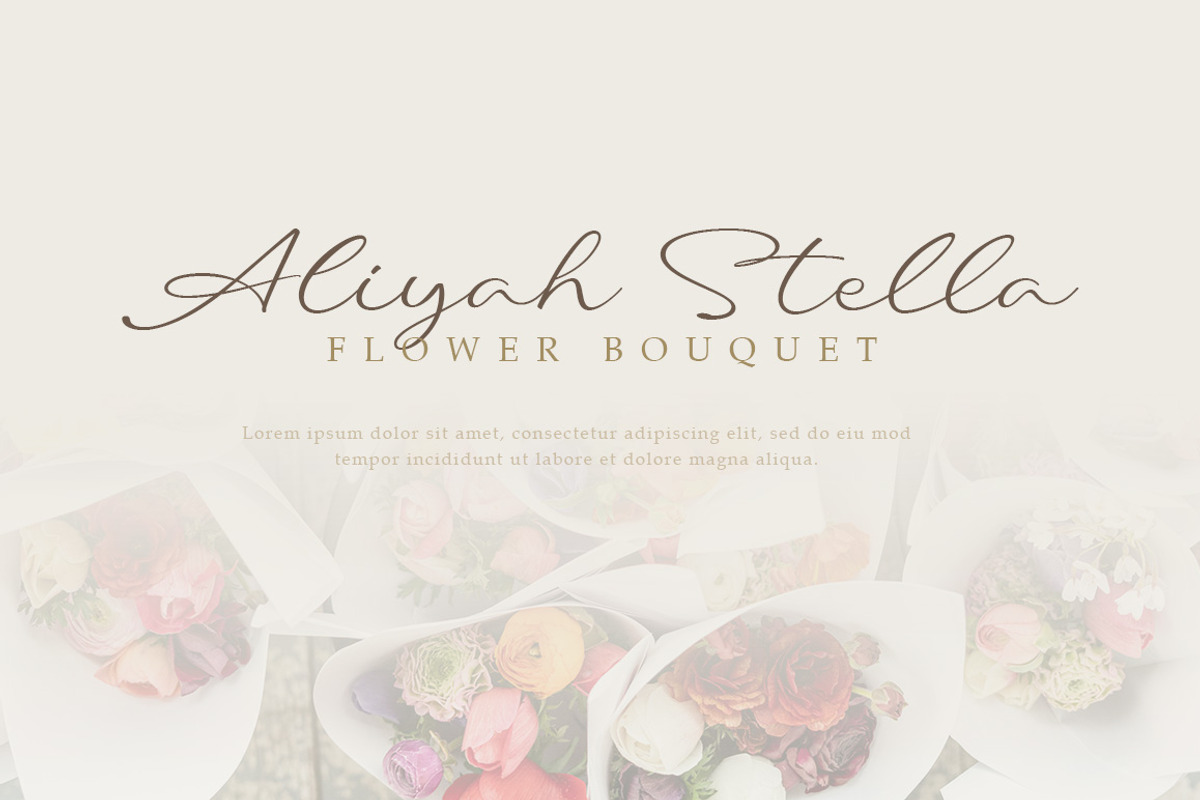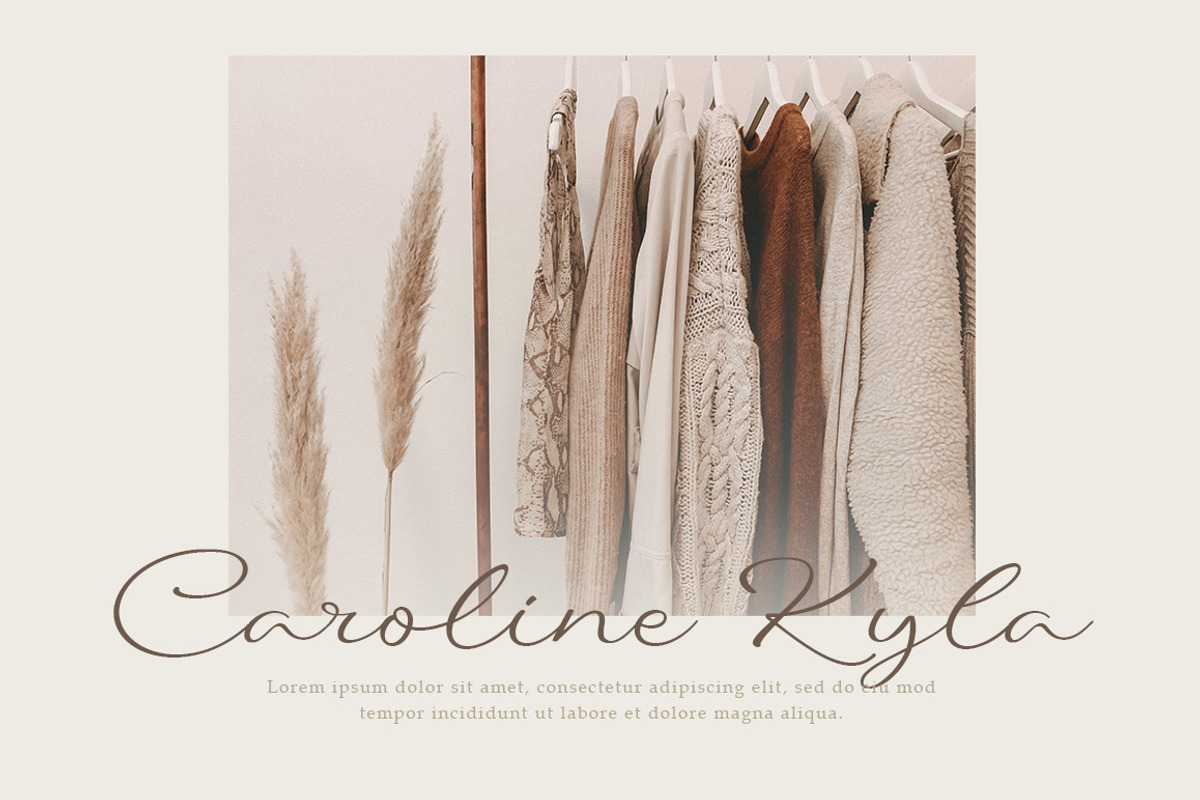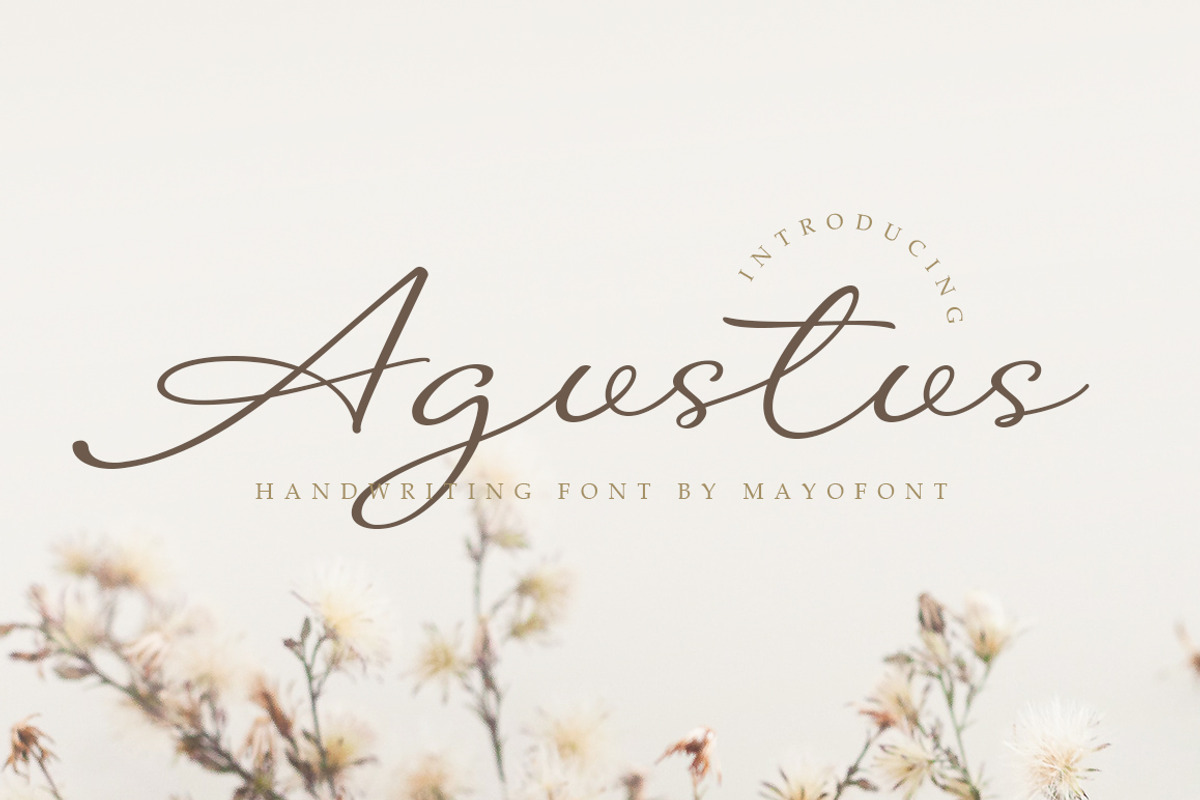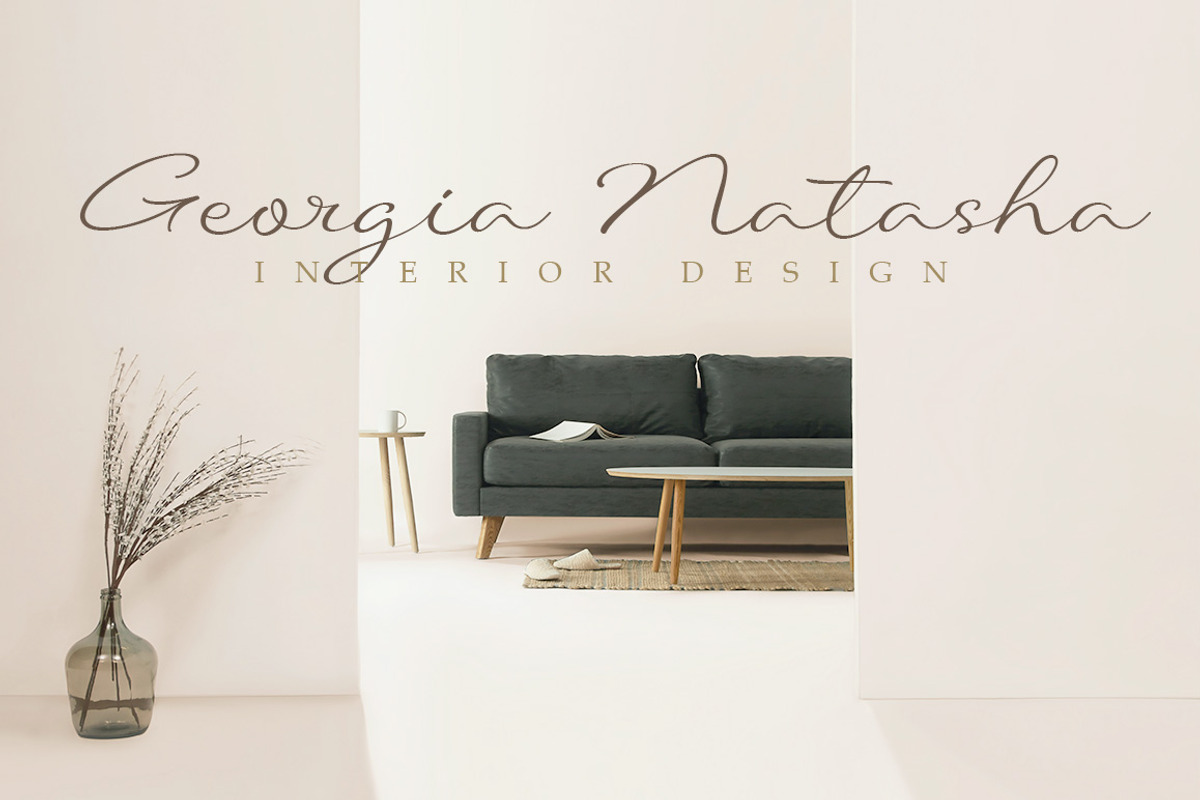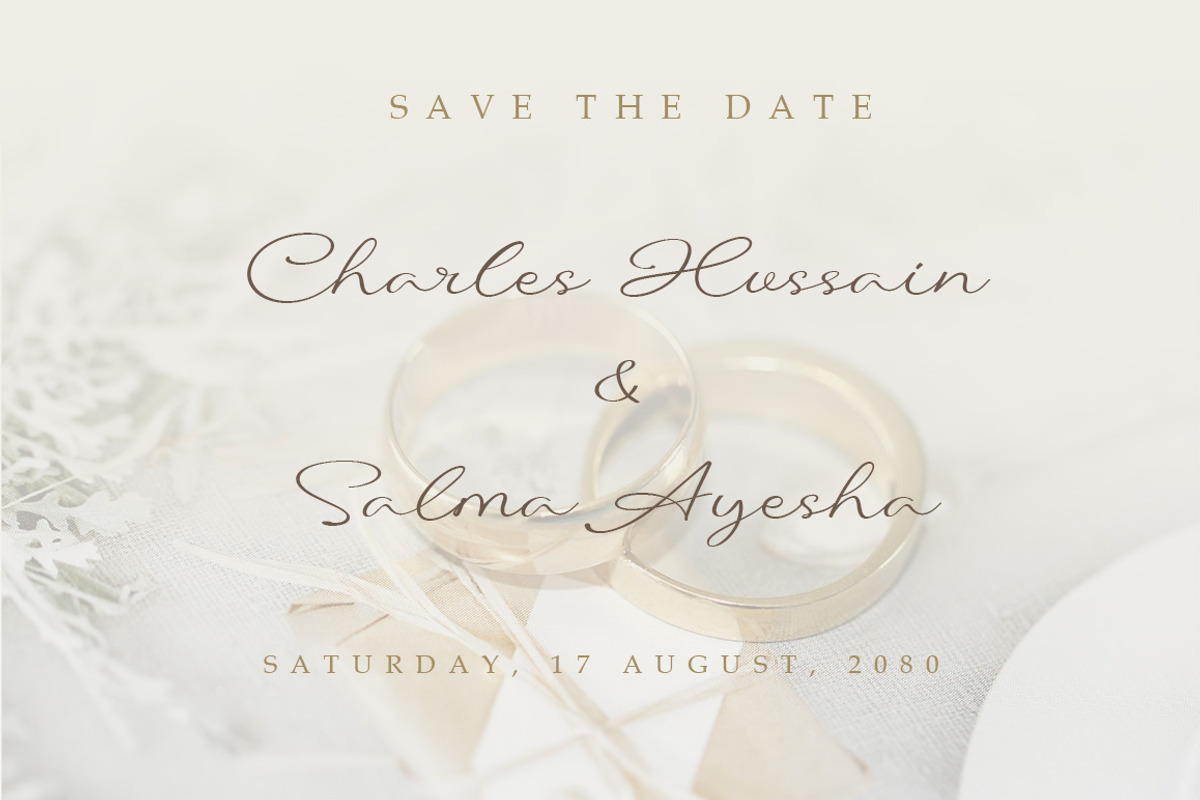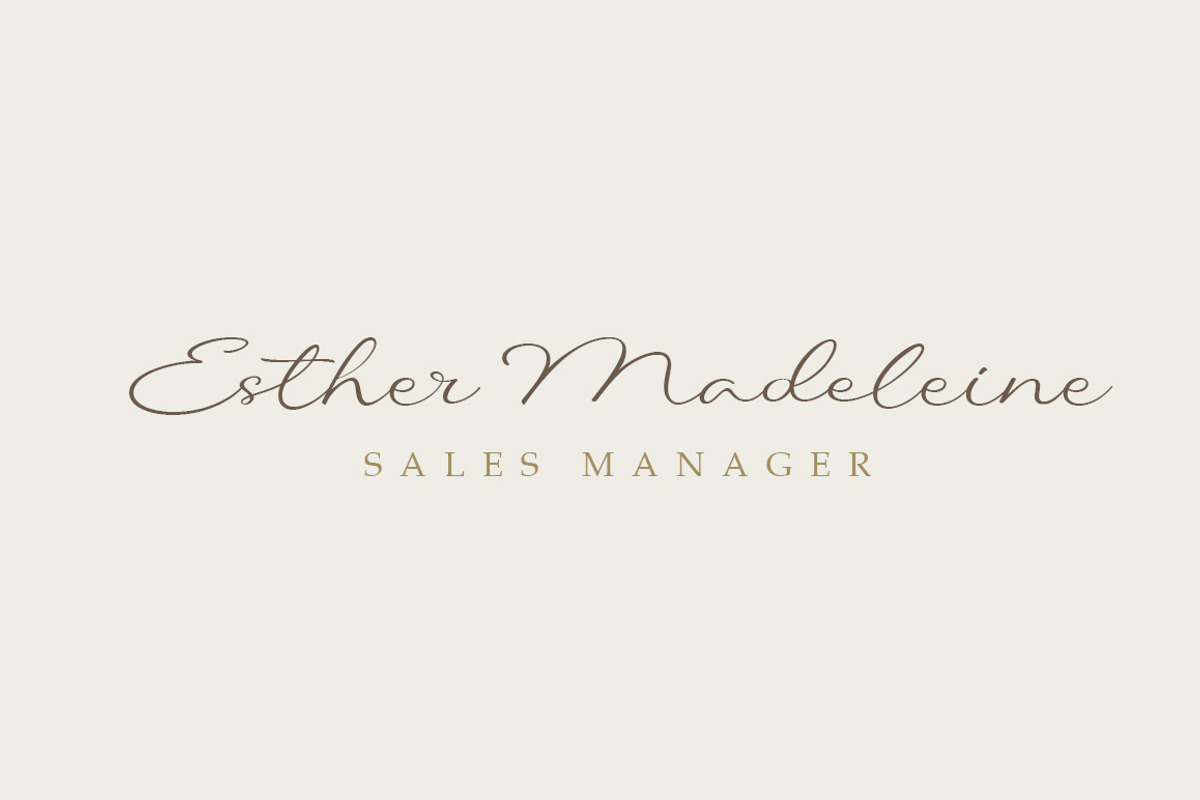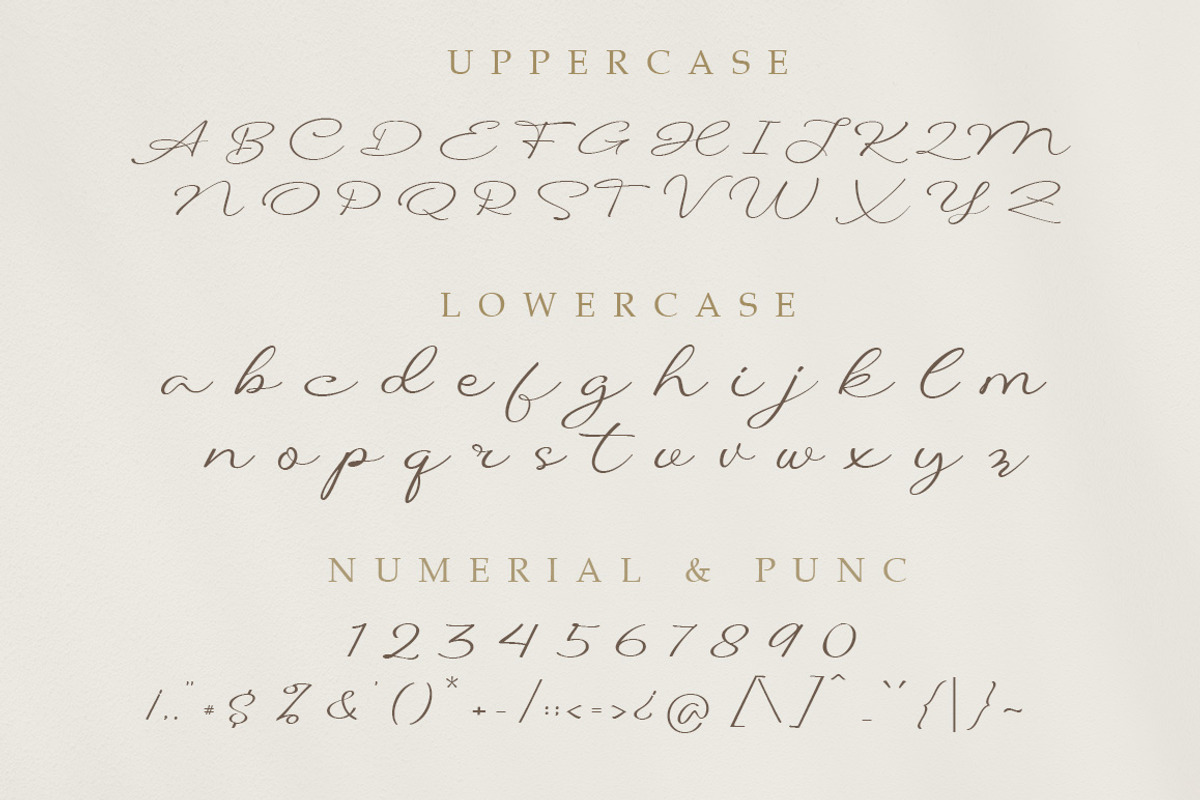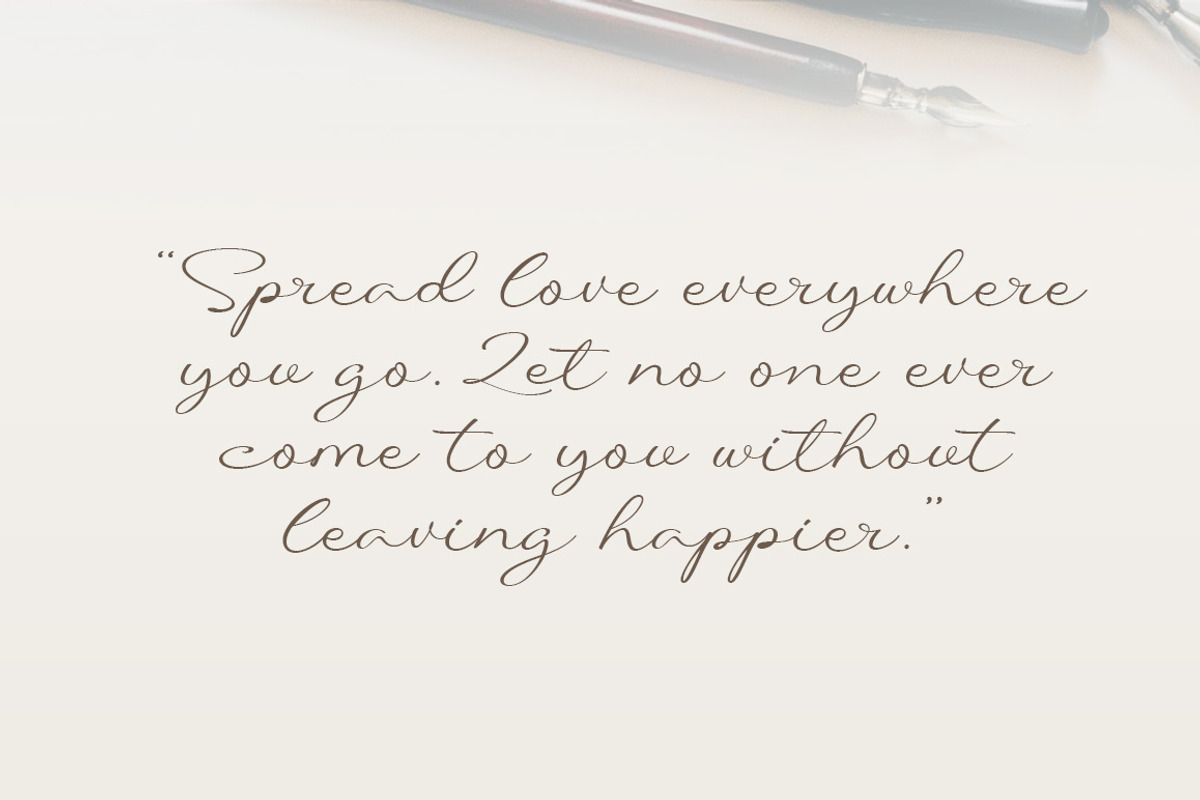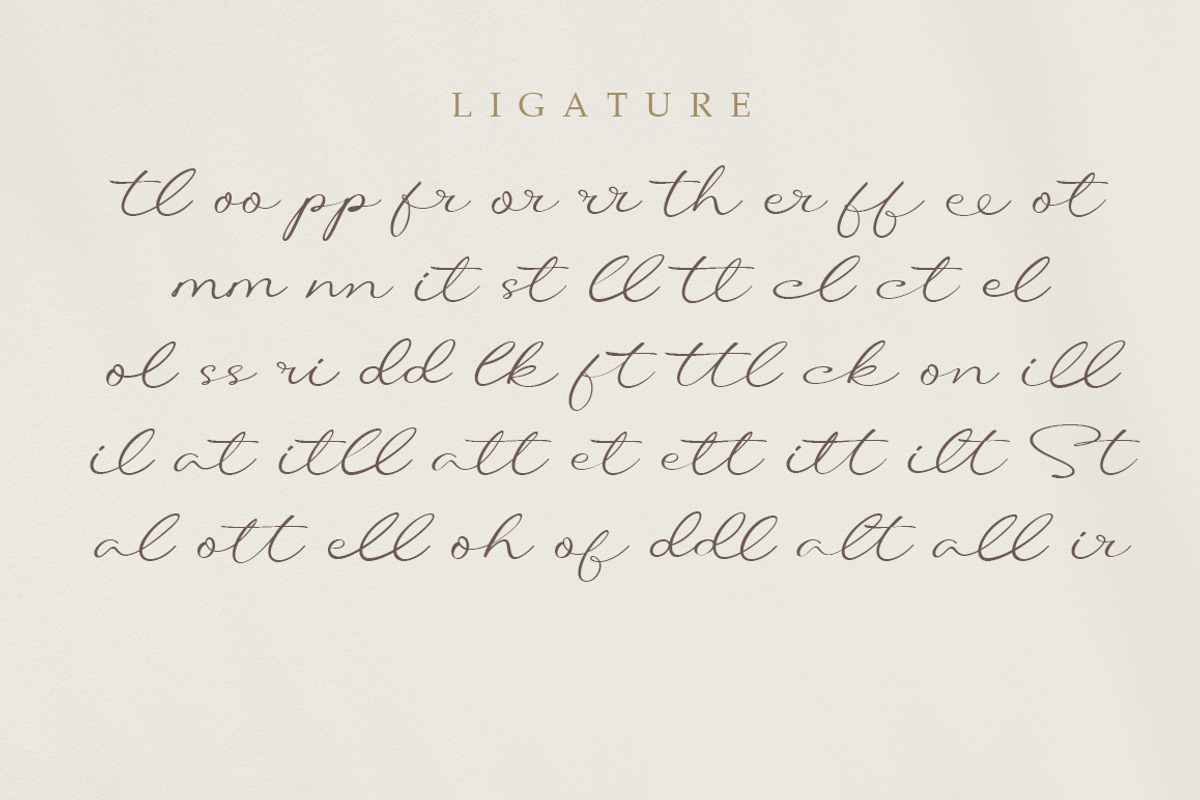
Agustus - Handwriting Font
Agustus is a sweet handwritten font that has a sassy modern style to create the most beautiful design projects.This font is perfect for logos, invitations, stationery, wedding designs, social media posts, advertisements, product packaging, product designs, label, photography, watermark or anything else.
- multilingual & ligatures